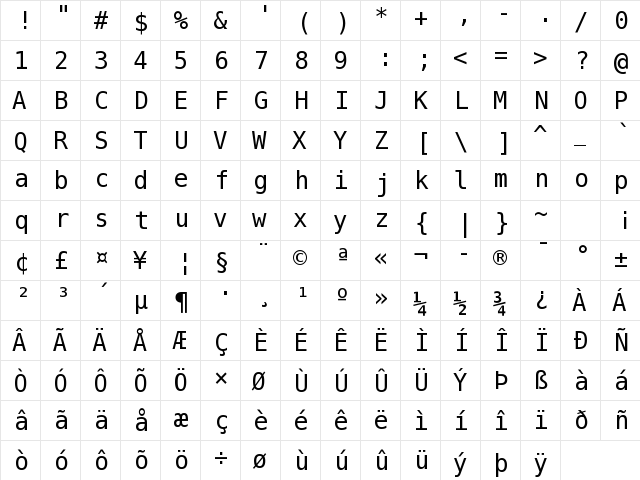
Bepa Mono Roman
| Foundry | Bitstream Inc. |
Design Context for Bepa Mono Typeface
Bepa Mono brings the precise, column-aligned rhythm of monospaced typography to designs that value technical clarity and systematic order.
A natural fit for code editors, technical documentation, developer-focused branding, and terminal-inspired UI.
Pro Tip: Pair Bepa Mono with a proportional sans for UI contexts where code-style labels and regular body copy need to coexist.